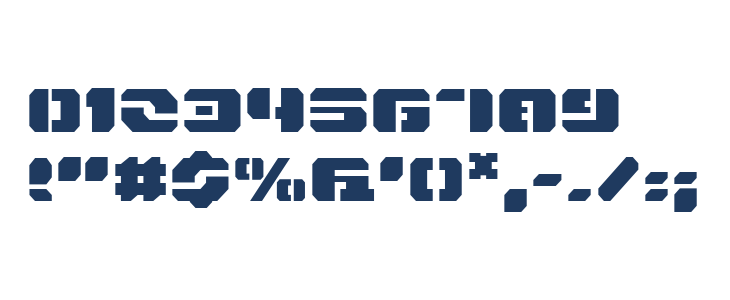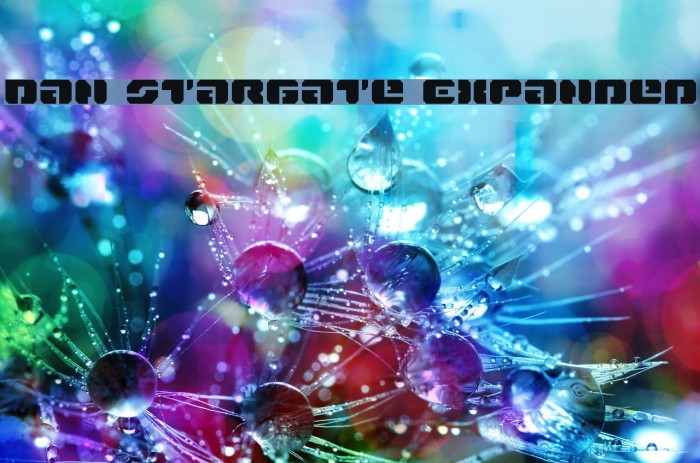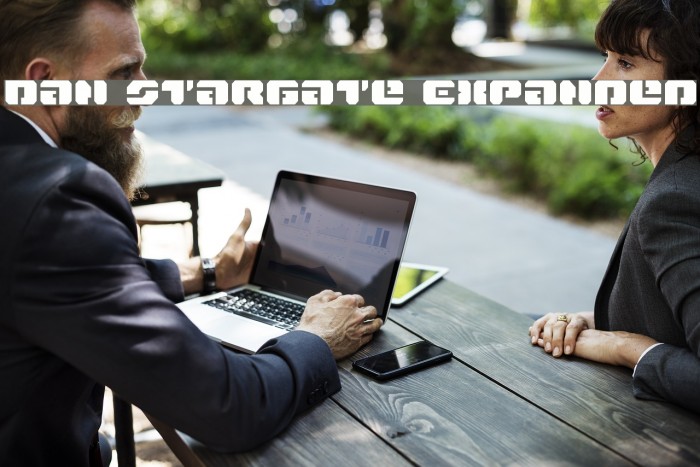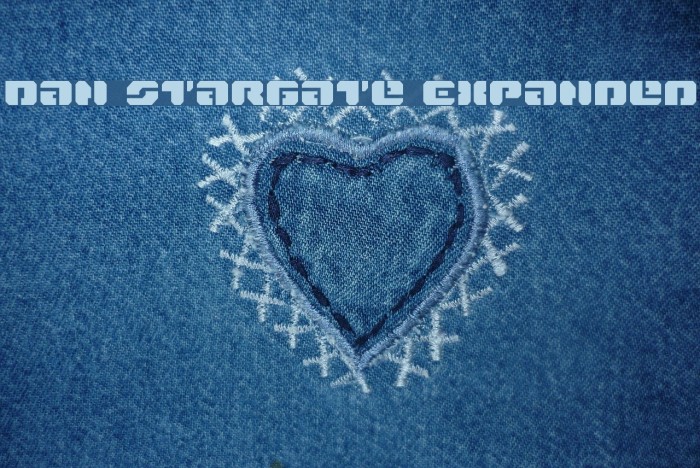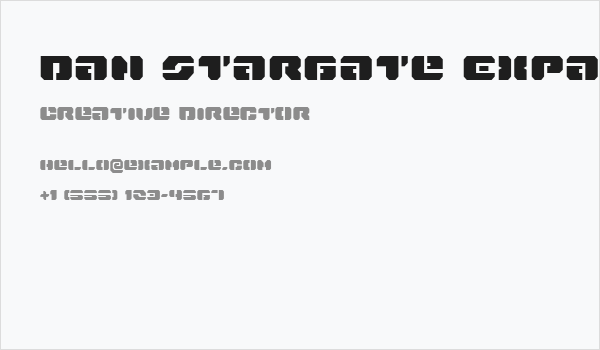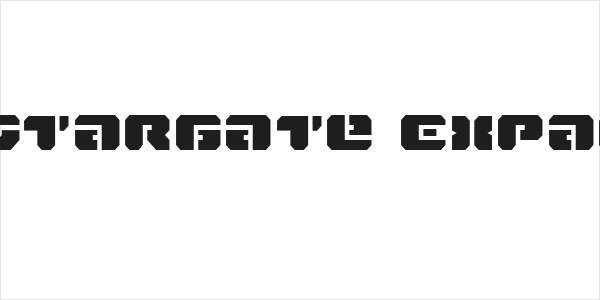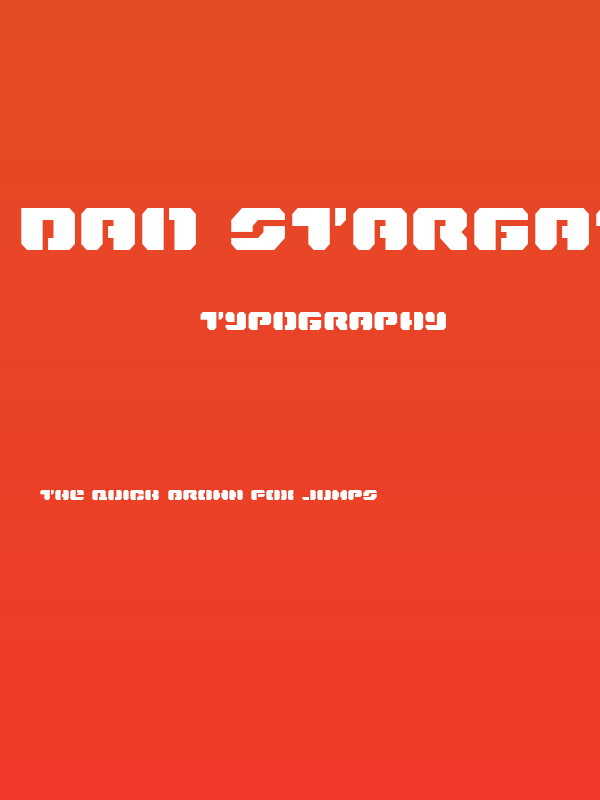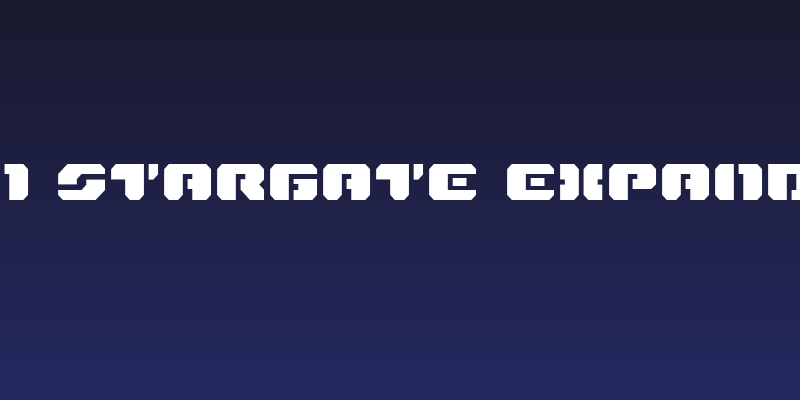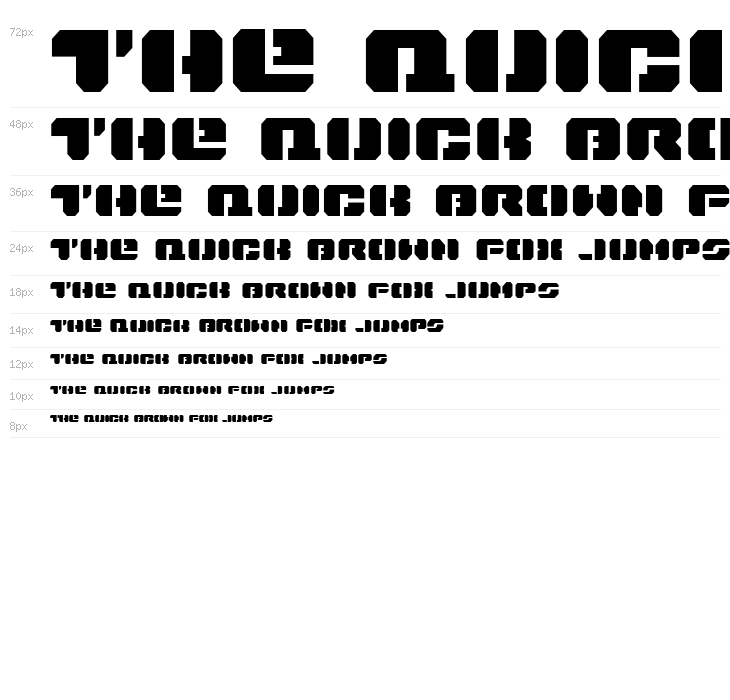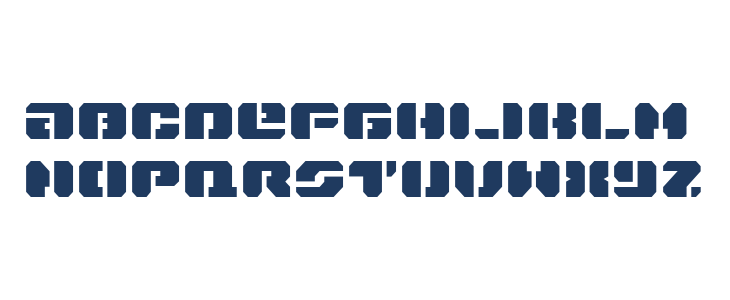
Dan Stargate Expanded Font
Dan Stargate Expanded Description
This font features a bold, futuristic design with a distinctly geometric structure. Each character is crafted with sharp angles and a blocky appearance, giving it a strong, impactful presence. The uppercase and lowercase letters maintain a consistent style, with minimal differentiation in size and shape. Numbers and special characters are equally bold and angular, ensuring uniformity across all elements. The font's expanded width and solid, filled-in strokes contribute to its modern, industrial aesthetic, making it ideal for projects that require a commanding visual statement.
| Overall Style | Futuristic, Industrial |
| Proposed Projects | Ideal for sci-fi themed designs, video game titles, movie posters, and branding that requires a strong, modern look. |